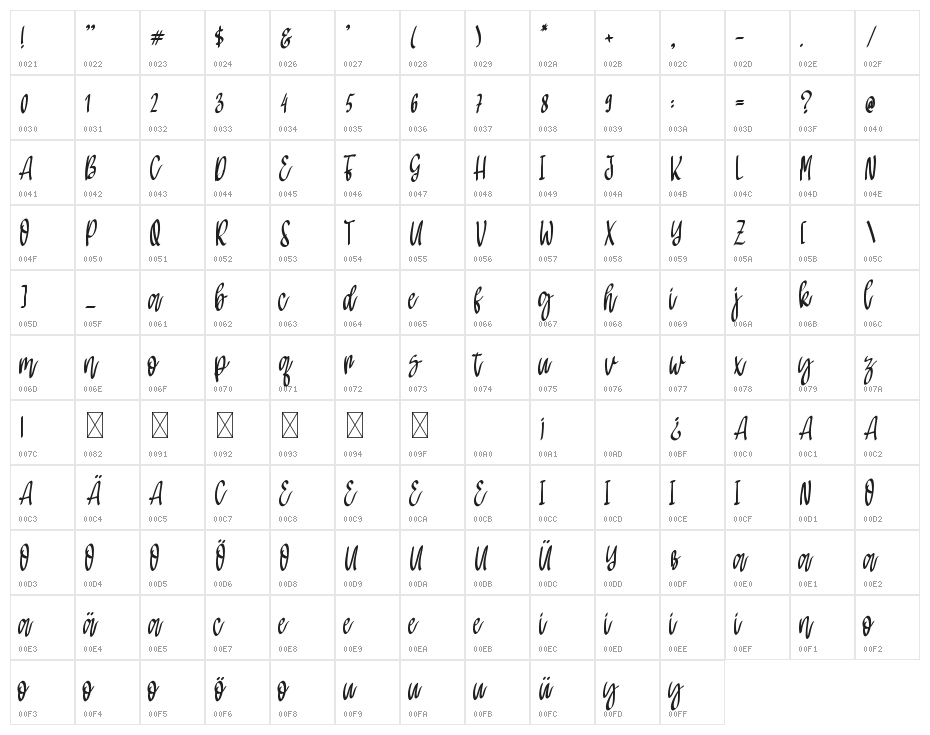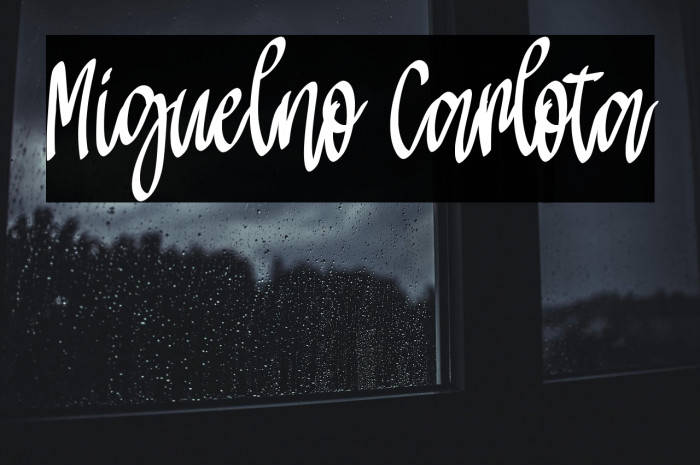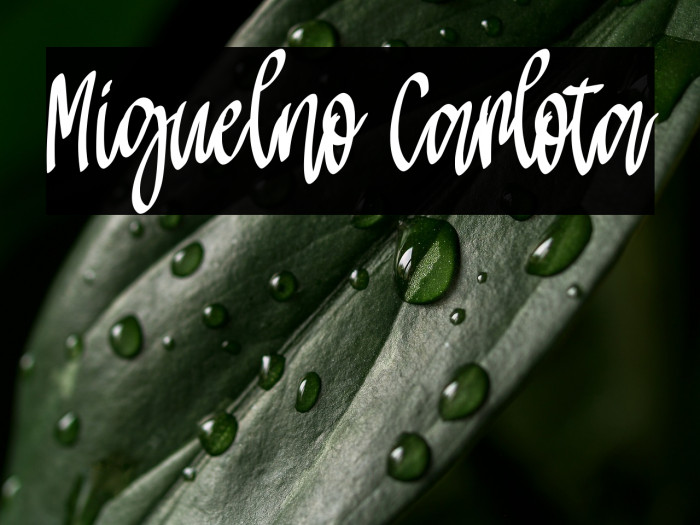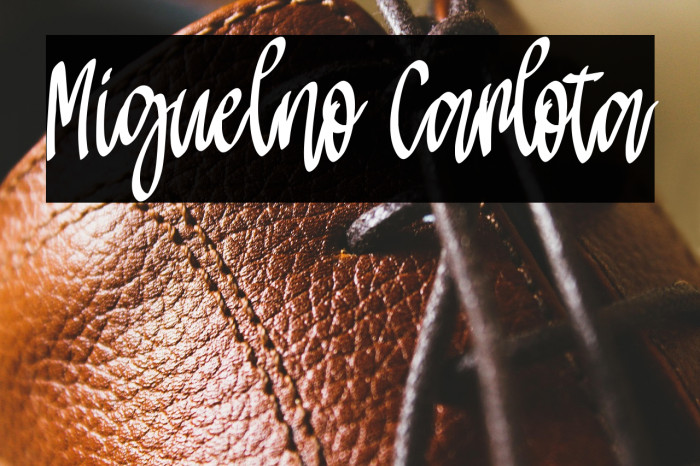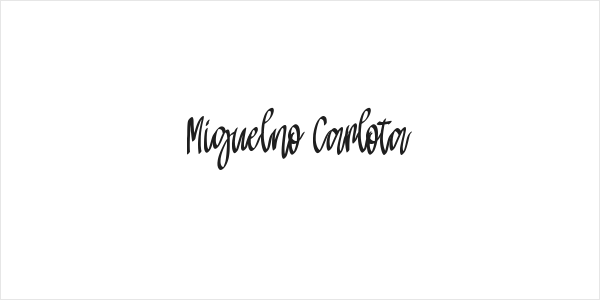
Miguelno Carlota Font
Miguelno Carlota Description
This font features a dynamic and fluid script style, characterized by its bold and expressive strokes. The uppercase letters are tall and slightly slanted, giving a sense of movement and elegance. The lowercase letters maintain a cohesive flow, with smooth connections between characters, enhancing the handwritten aesthetic. The numerals are consistent with the overall style, offering a playful yet sophisticated look. Special characters are crafted with the same attention to detail, ensuring versatility in various design contexts. The font's overall appearance is both modern and artistic, making it suitable for creative projects.
| Proposed Projects | Ideal for branding, invitations, greeting cards, and social media graphics. |